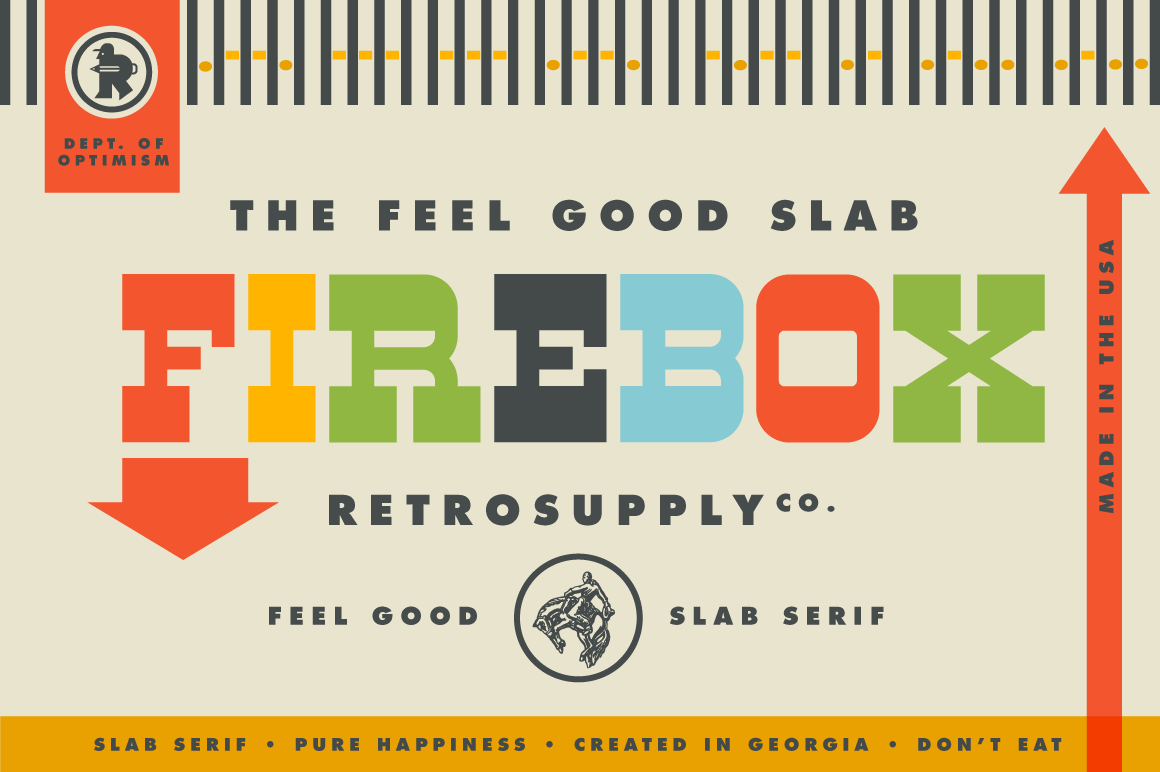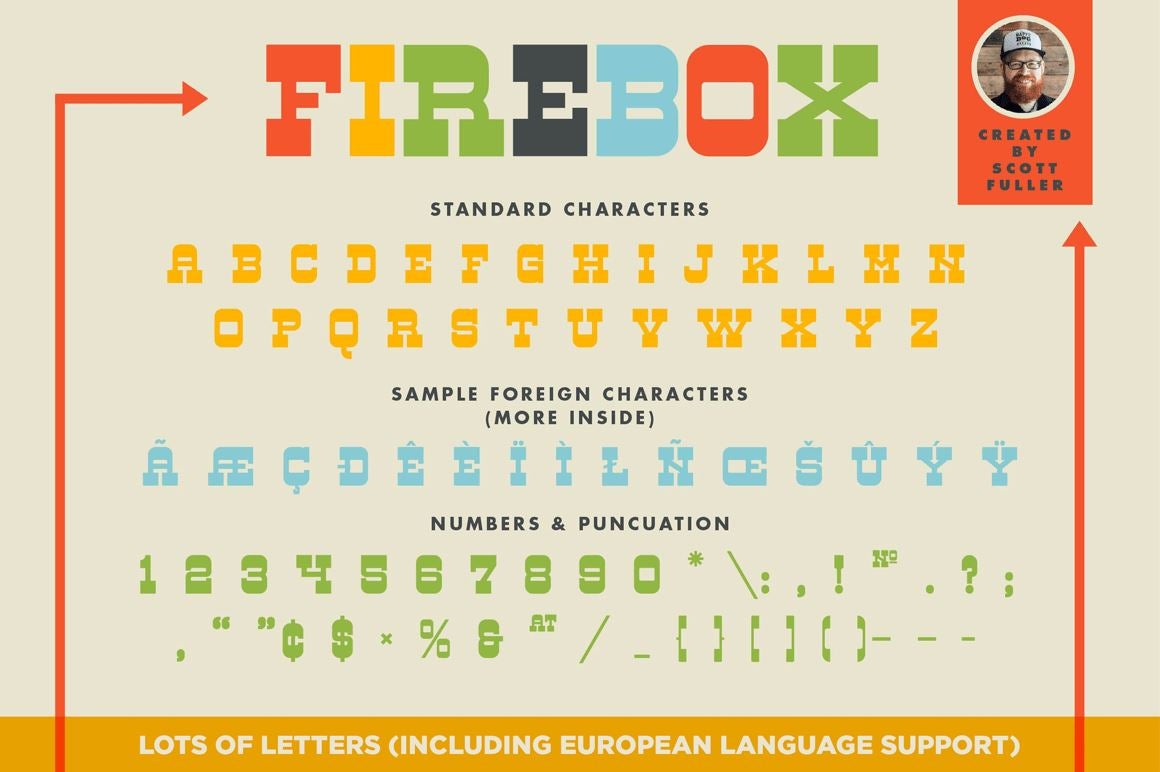
Firebox Font
What Happened to Tinplated Toys?
In 1919, Louis Marx and Company began manufacturing eye-catching tinplated toys. Within a few years the bedrooms of American boys were filled with cowboys, race cars, trains, and sports figures.
Then towards the end of the 1950s, these toys mysteriously vanished.
Bring back that special nostalgia to your designs with Firebox.
• Full European language support
• Complete alpha-numeric characters
Foundry: RetroSupply Co.